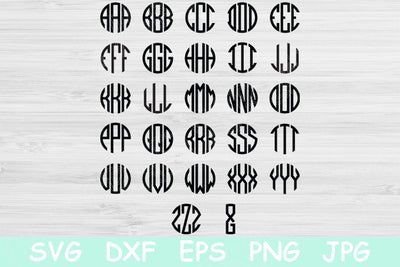
Block Monogram Font Svg, Circle Monogram Svg. Round Alphabet Letters for Iron On Heat Press Designs. Cricut and Silhouette Digital Cut Files
This block monogram font svg that is a circle monogram svg cut file are the perfect monogram svg letters to make monogram decals. It would look great cup.
This listing is for block letter monograms.